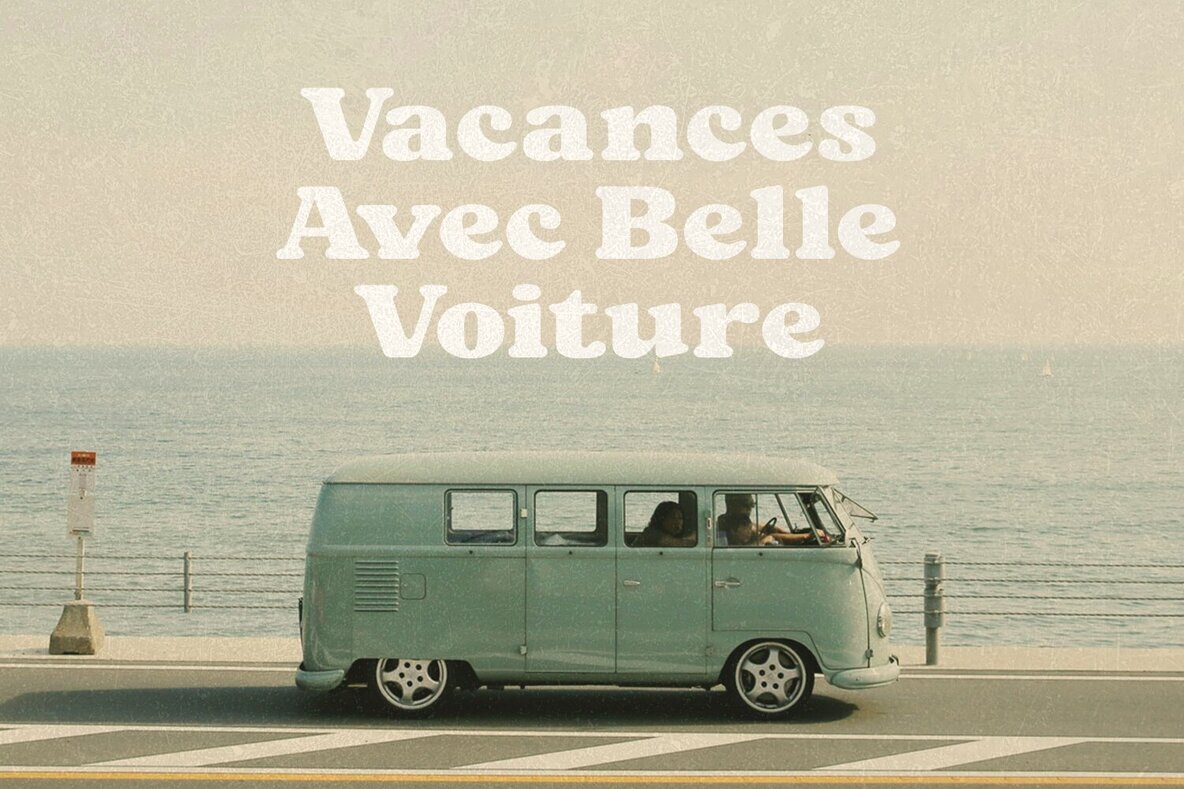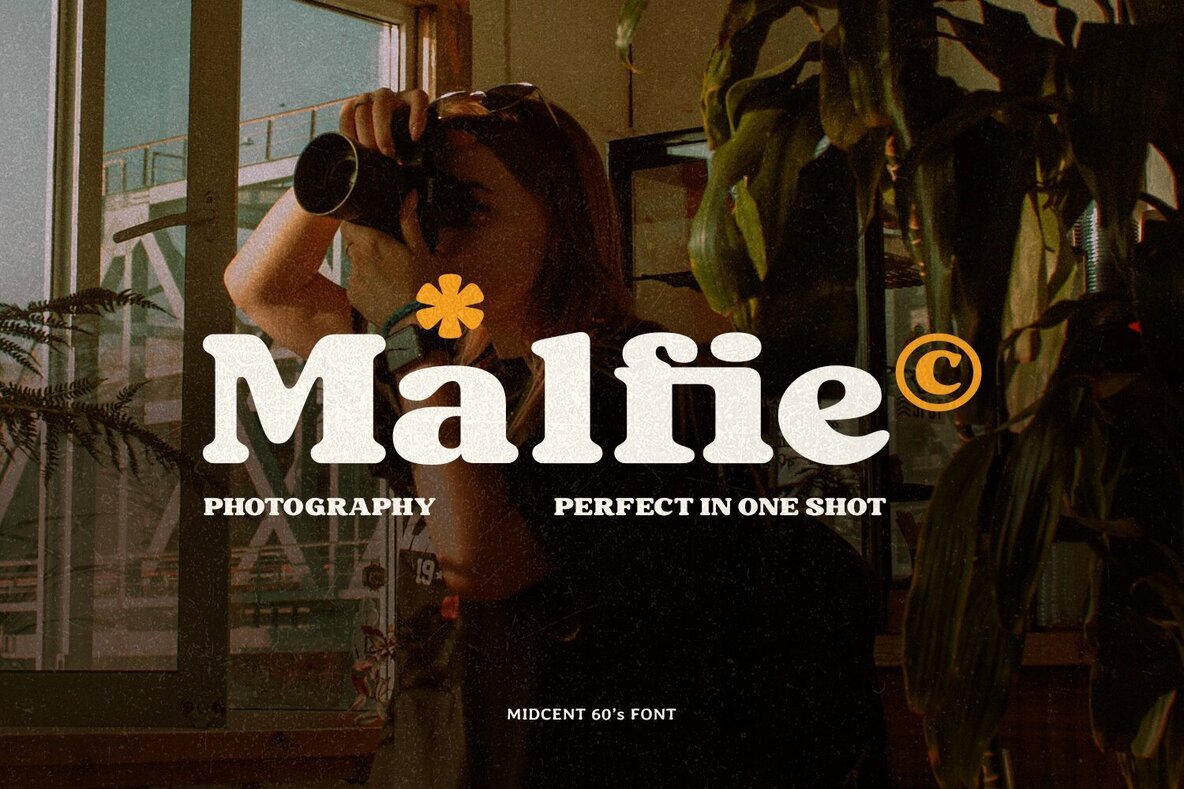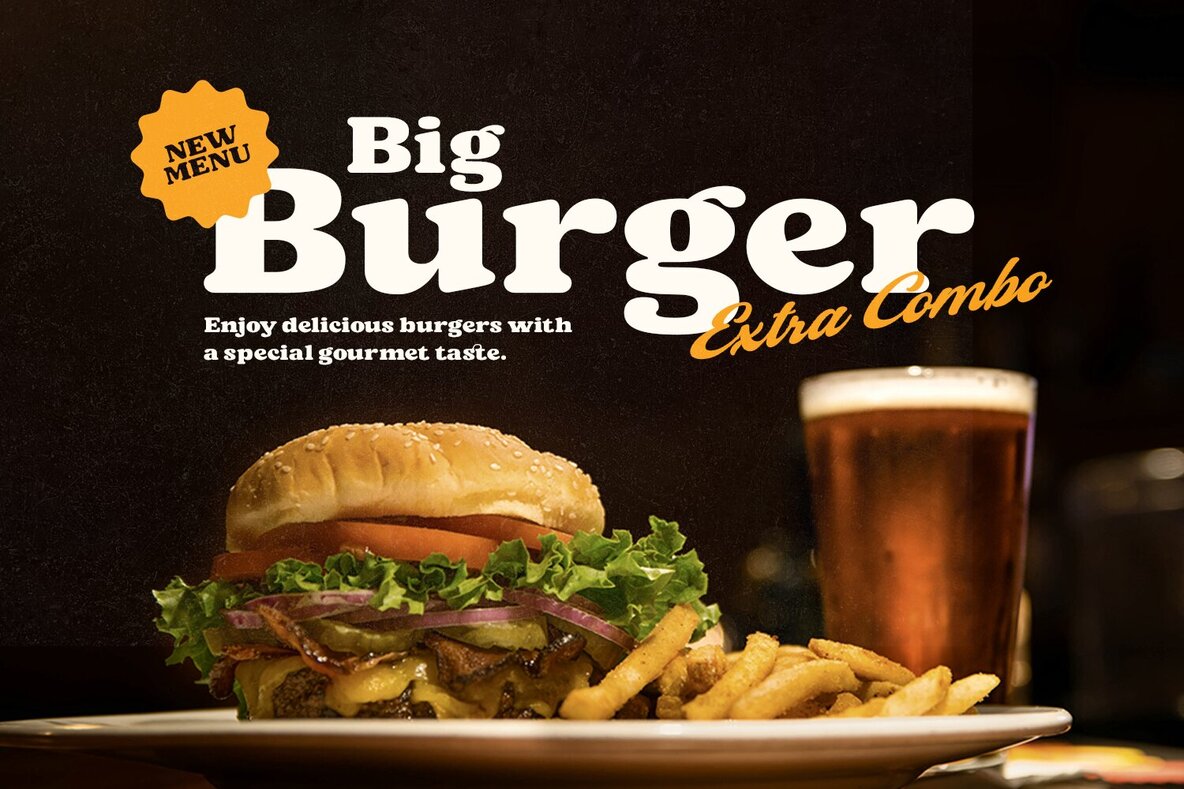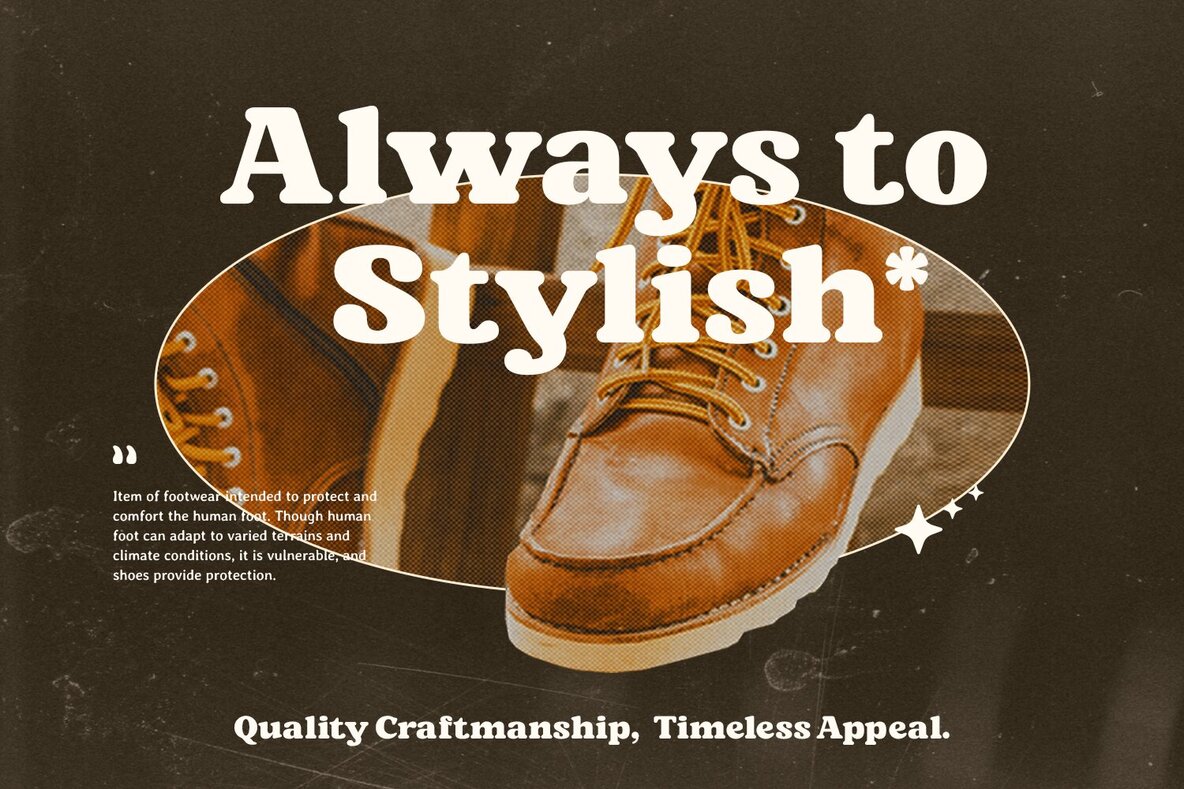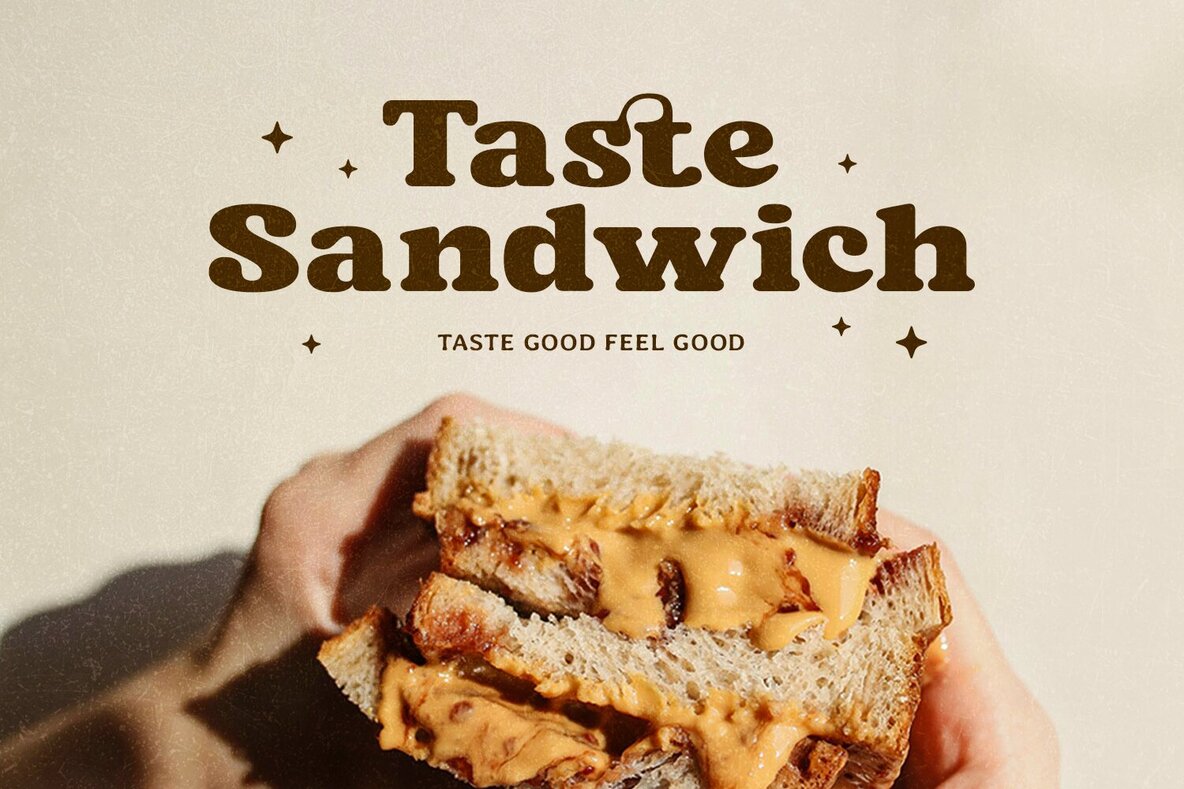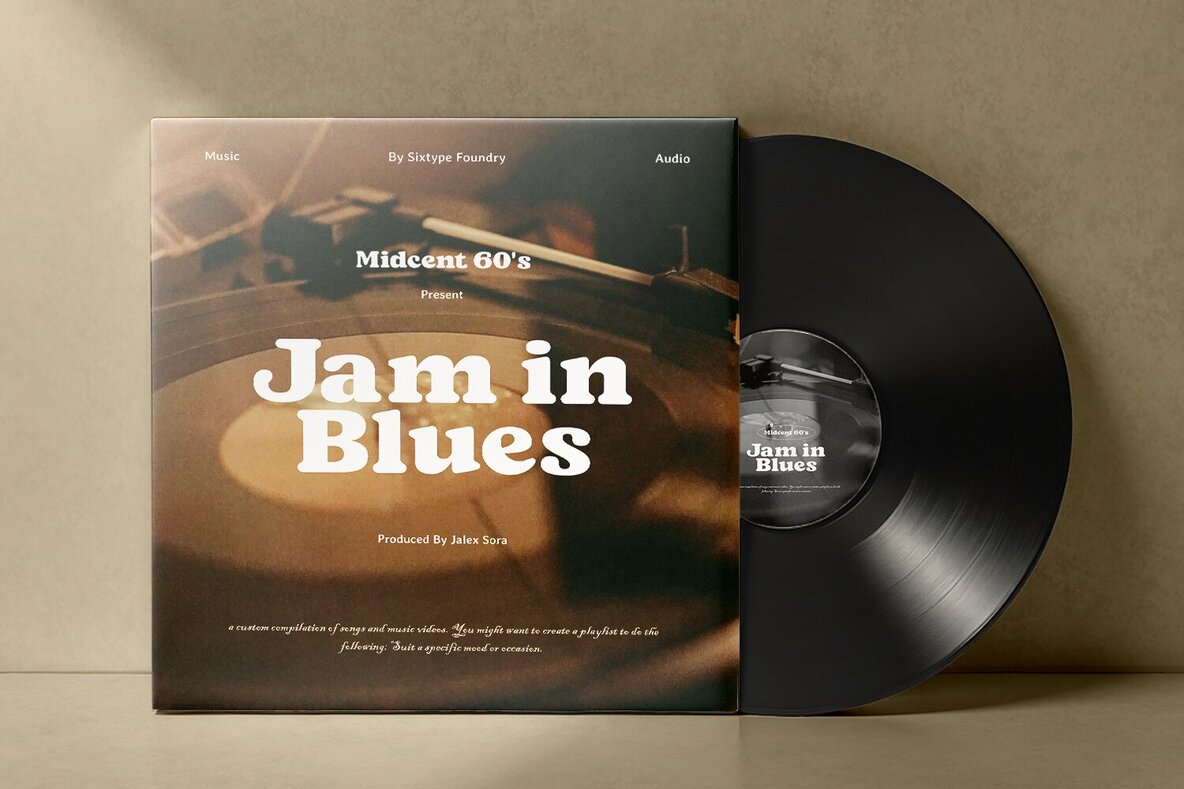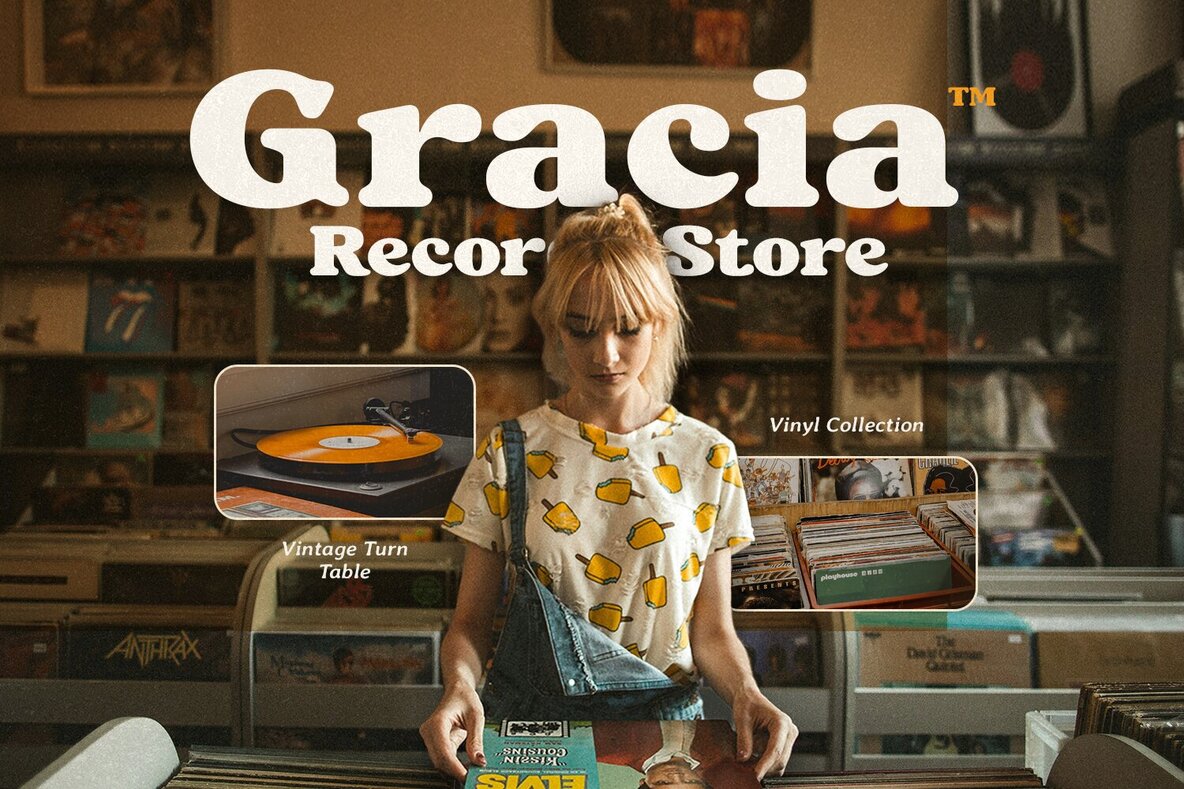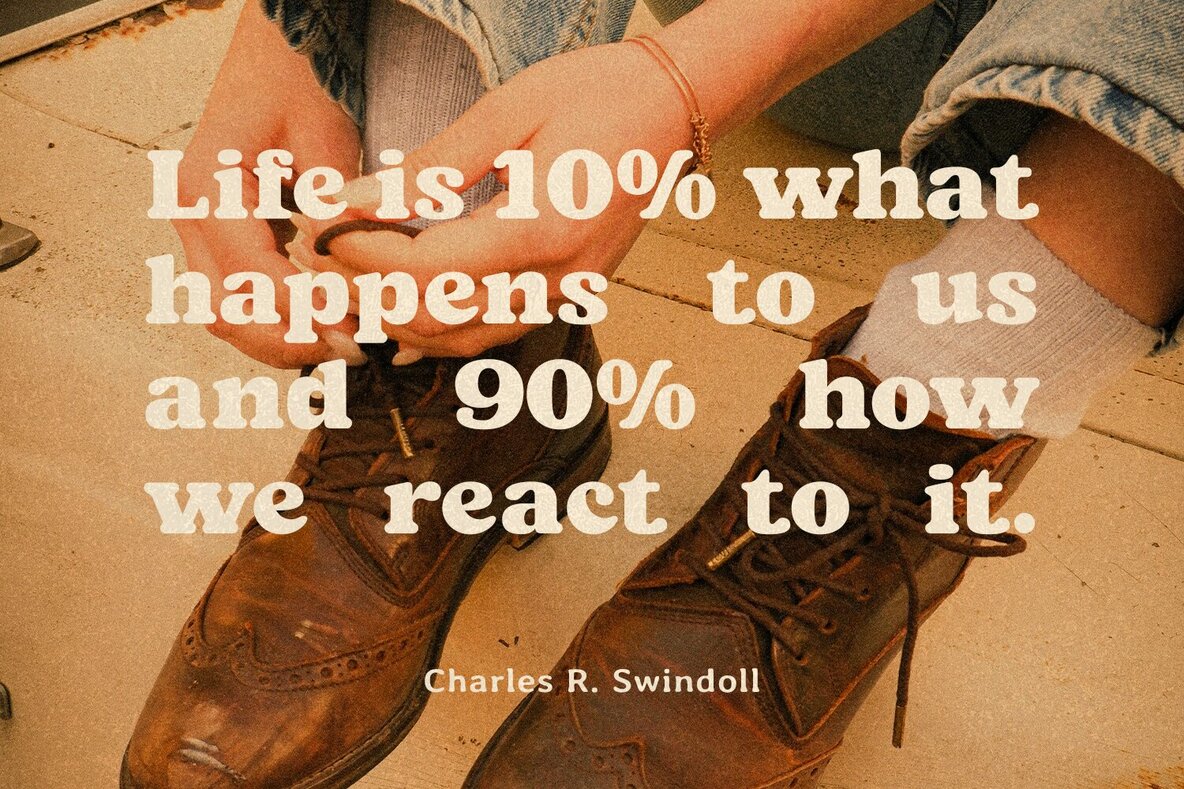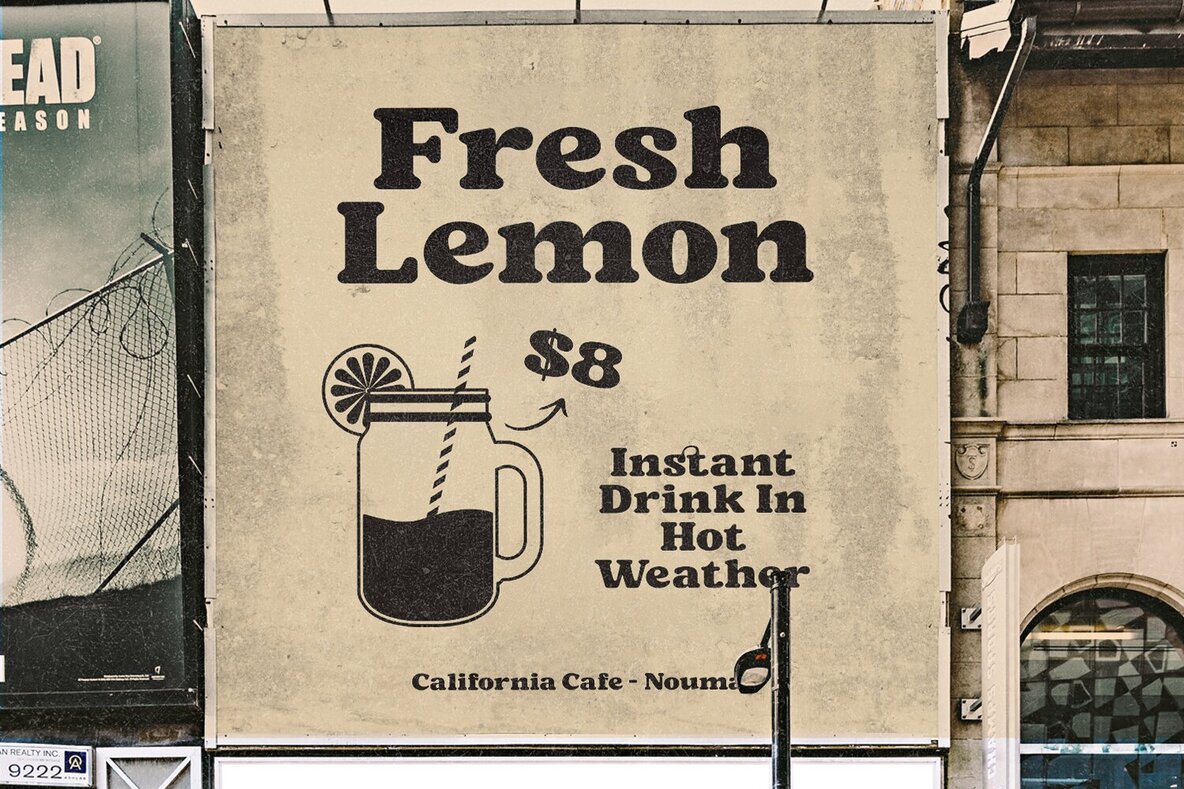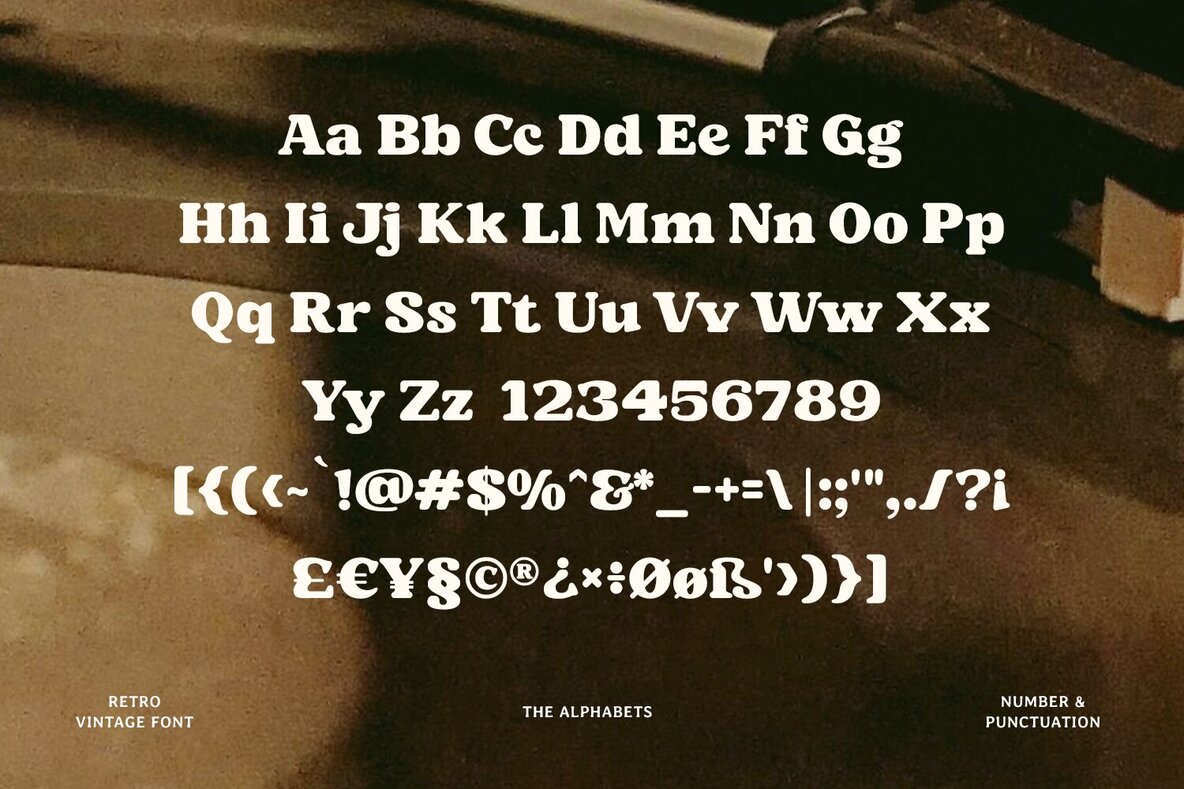
Midcent 60s Font
Midcent60s Black
A curvaceous serif typeface inspired by the ambiance of the 1960s holds the power to infuse digital designs with a captivating vintage allure. With its elegant curves and nostalgic charm, this typeface transports viewers back to an era characterized by artistic experimentation and cultural revolution. By incorporating such a typeface into digital projects, designers can evoke feelings of nostalgia and authenticity, creating a connection with audiences who appreciate the aesthetic appeal of bygone times.